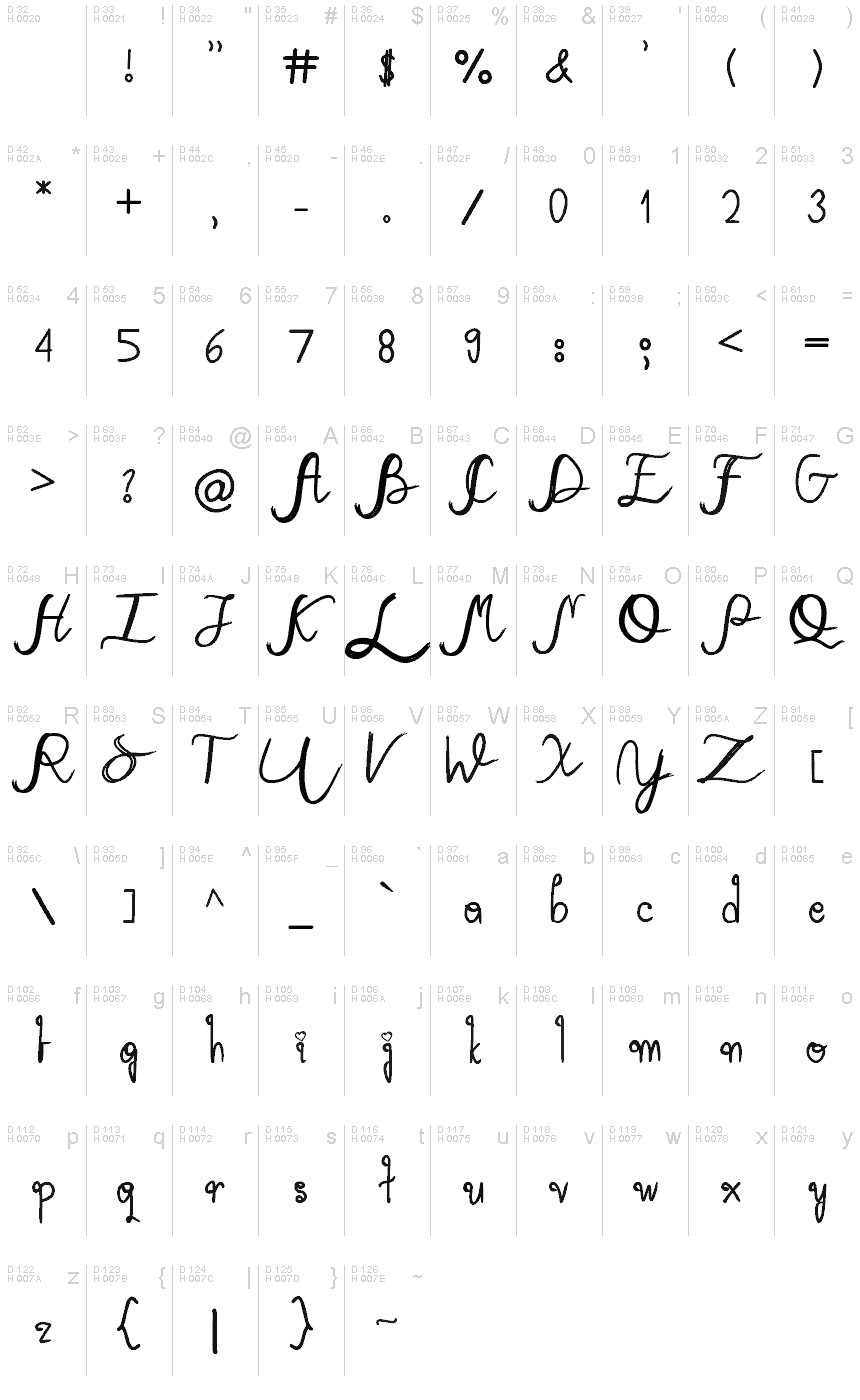
Mary Quincy
Mary Quincy, a captivating handwritten font crafted by Dimas Prasetyo of DM Letter Studio, exudes a delightful blend of elegance and playfulness. The script's effortless strokes and organic flow evoke a sense of warmth and authenticity, making it an alluring choice for projects seeking a touch of personal charm. With its distinctive character shapes and natural rhythm, Mary Quincy holds the power to elevate any design, seamlessly transitioning between formal and informal contexts.
This versatile font lends itself beautifully to a wide array of applications, from captivating branding and packaging designs to enchanting wedding suites and heartfelt stationery. Its versatility shines through in creative endeavors that aim to convey a handcrafted, personalized aesthetic, making it an ideal selection for businesses, entrepreneurs, and artists seeking to connect with their audience on a more intimate level.